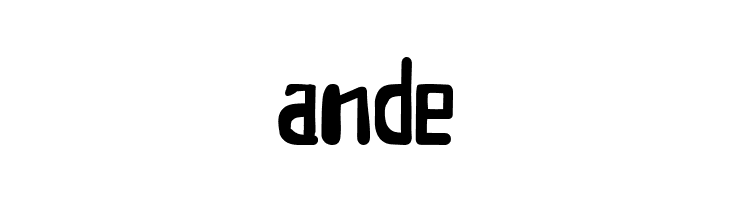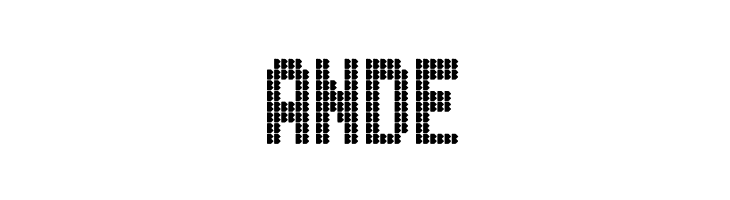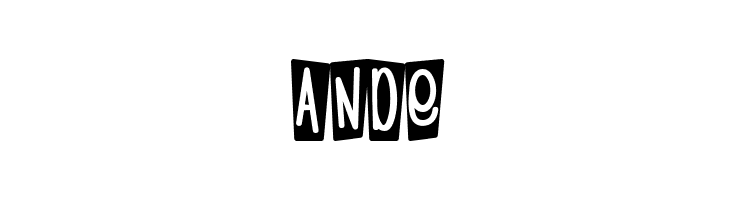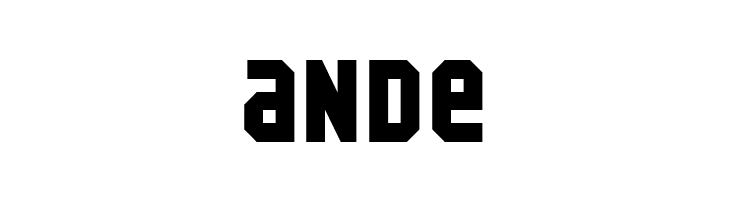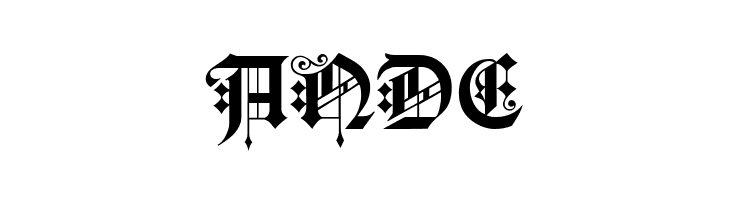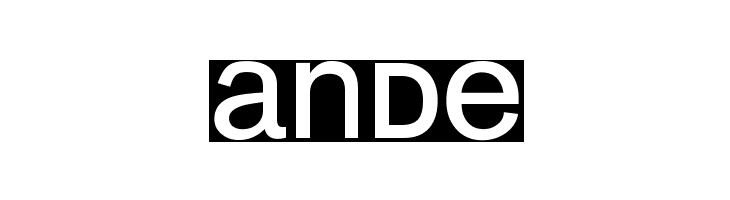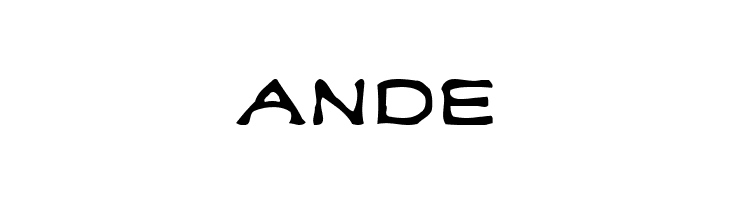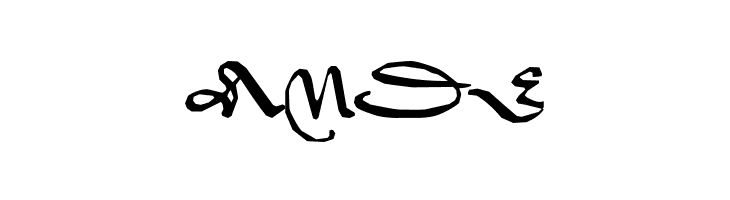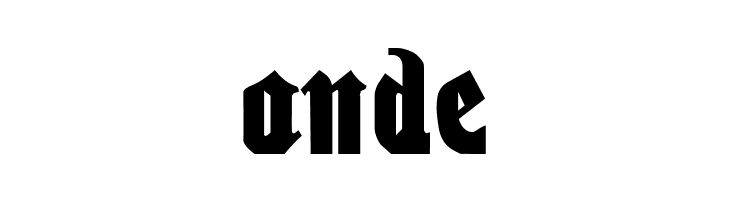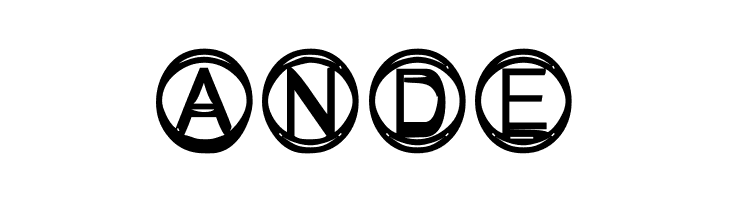
A whimsical and decorative font featuring cartoon-like characters and creatures.
A gothic, decorative font with sharp, elongated strokes and a distressed appearance.
A bold, playful font with a three-dimensional, cartoonish style.
An ornate, decorative font with festive swirls and flourishes.
A bold, pixelated display font with a retro digital aesthetic.
An ornate Blackletter font with intricate flourishes and sharp angles.
A bold, high-contrast serif font with sharp, angular features.
A playful, heart-themed decorative font with bold, rounded characters.
A playful, heart-themed decorative font with bold, outlined characters.
A bold, playful handwritten font with a lively and casual style.
A bold, stencil-style font with a strong, industrial aesthetic.
A whimsical, curly font with decorative swirls and loops.
A whimsical, decorative font with curly, swirly elements and playful character designs.
Hand-drawn cat face illustrations used as letterforms.
A bold, geometric sans-serif font with a monospaced appearance.
A classic serif font with a modern touch, featuring elegant curves and flared serifs.
An ornate and decorative font with a calligraphic style.
A geometric, modern font with clean lines and a structured appearance.
A whimsical and playful script font with fluid, artistic letterforms.
A playful, artistic script font with fluid, connected letterforms and medium contrast.
A playful, bold font with characters in tilted rectangles, ideal for dynamic designs.
A bold, hand-drawn font with a rough, textured style and playful character.
A playful, bold font with quirky, irregular characters and a lively appearance.